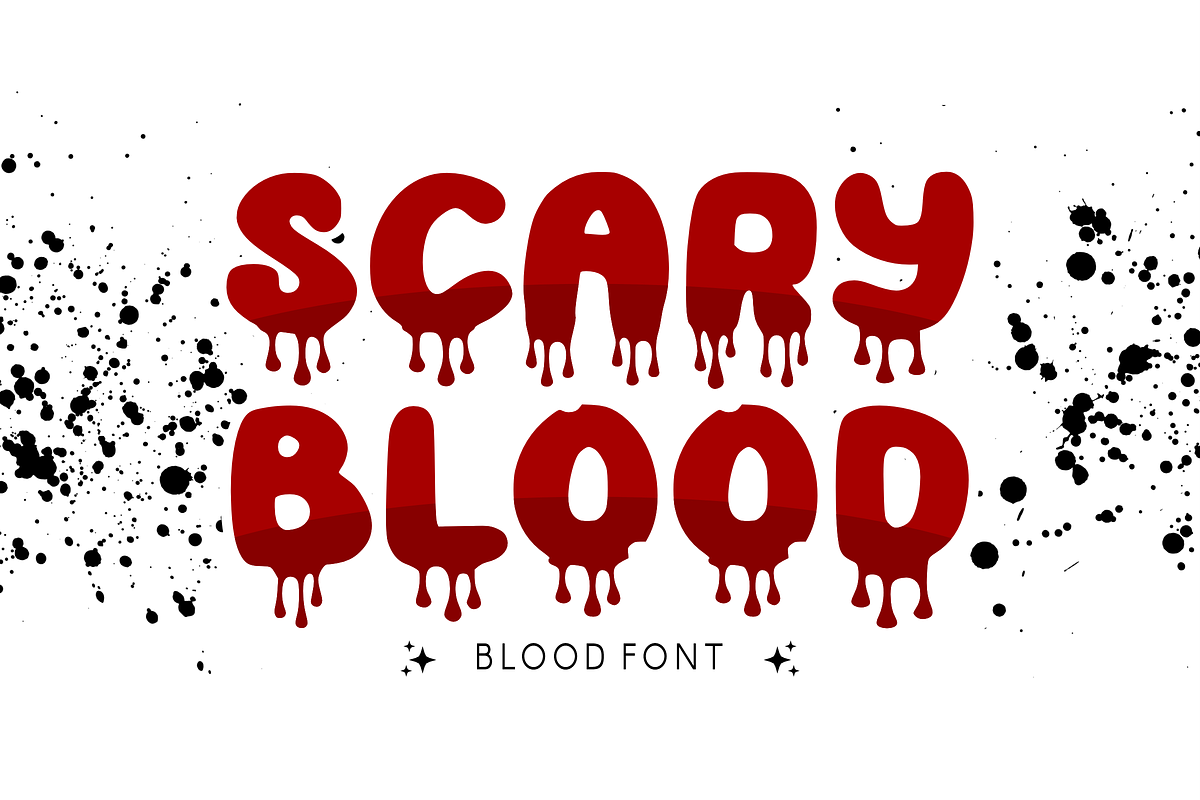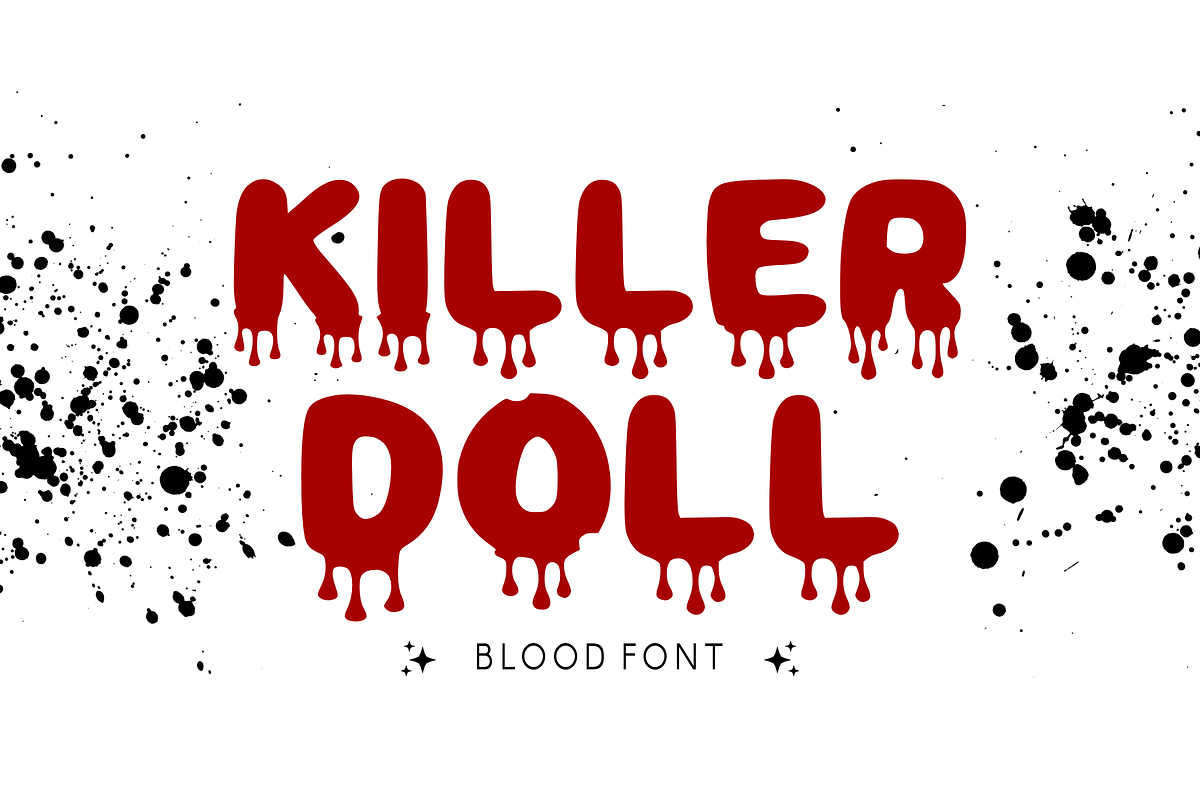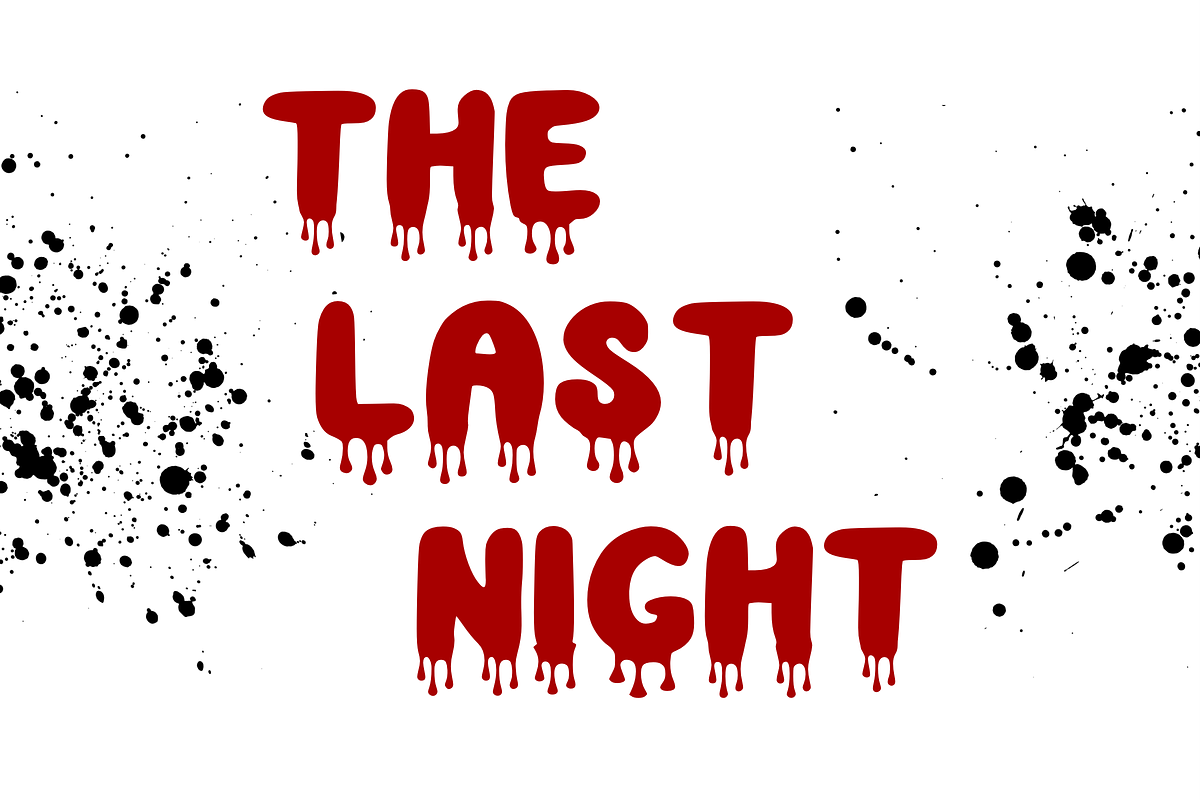
Scary Blood - Display Font
🩸 Scary Blood - Spooky & Dripping Horror Font 🧟 Get ready to give your audience the chills with Scary Blood! This spine-tingling display font features bold, rounded characters with a realistic "dripping" effect. Designed with a thick, sticker-style outline, it perfectly balances a spooky horror vibe with a playful, cartoonish aesthetic.
Whether you're planning a haunted event or creating creepy merchandise, Scary Blood is the ultimate choice for designs that need to look "frightfully" fun!
👻 Key Features: 🩸 Dripping Uppercase: Bold, melting letters that look like fresh blood or slime.
🔢 Numbers 0-9: Perfectly matched spooky numerals for countdowns and dates.
💀 Simple Symbols: Essential punctuation to add that final ghostly touch.
✂️ Sticker Ready: Smooth, clean outlines ideal for vinyl cutting and Halloween stickers.
🎃 Perfect For: 🕸️ Halloween Decor: Party invitations, spooky banners, and yard signs.
👕 Horror Merch: Grungy t-shirt designs, hoodie prints, and tote bags.
🎮 Gaming & Video: Horror game titles, YouTube thumbnails, and stream overlays.
🎥 Movie Posters: Thriller titles, book covers, and mystery flyers.
🍬 Confectionery: Spooky snack packaging and "Trick or Treat" labels.